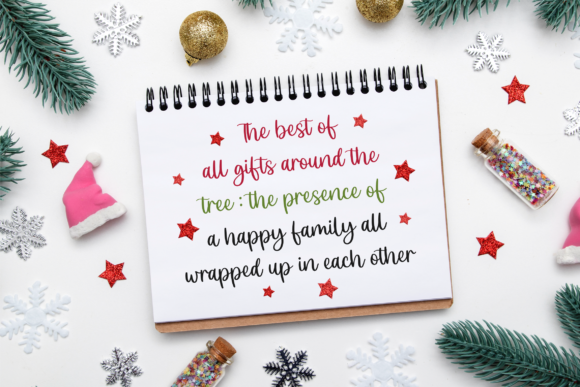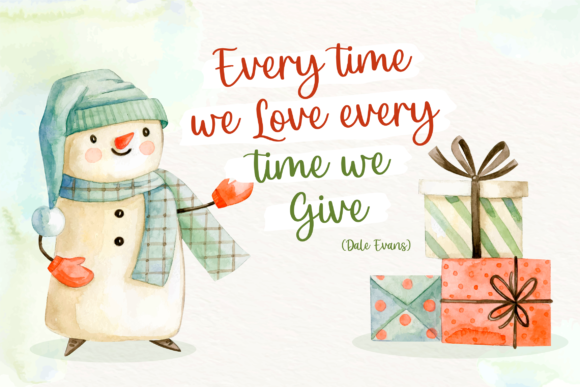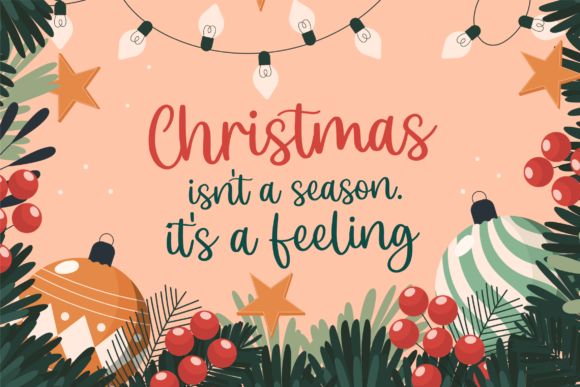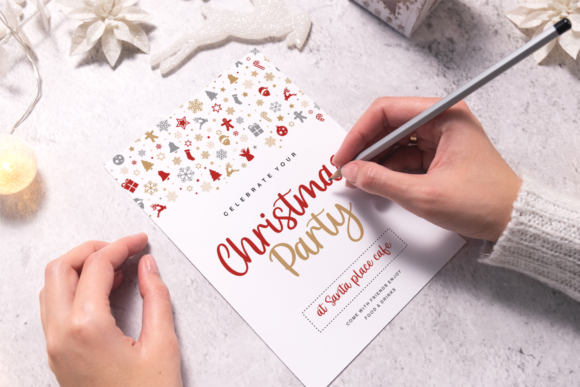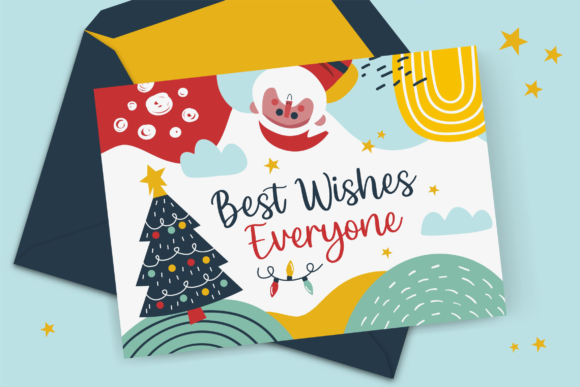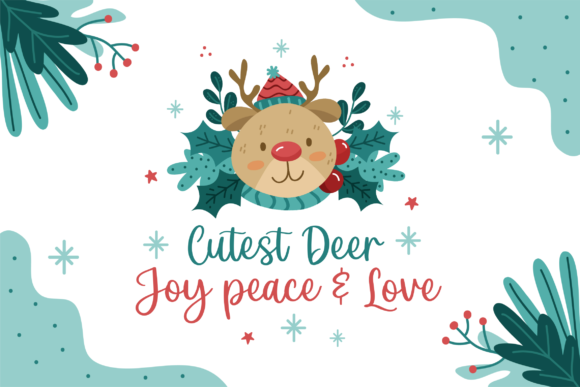
Introduction to Christmas Scriptty Font
It’s the most wonderful time of the year – and what better way to get into the holiday spirit than by unleashing your creativity? As designers, we’re always on the lookout for the perfect tools to bring our visions to life, and that’s exactly where the Christmas Scriptty Font comes in.
This dazzling script font is the perfect addition to any design project, adding a touch of luxury and sophistication that’s sure to impress. With its high-quality design and transparent background, it’s the ideal resource for any creative project that needs a little extra flair.
Whether you’re working on a festive holiday card or a commercial campaign, the Christmas Scriptty Font is a valuable asset to have in your design toolkit. And the best part? It’s available for a free download, making it accessible to designers of all levels and styles.
Key Features of Christmas Scriptty Font
- High-quality design: The Christmas Scriptty Font is a premium, high-quality design resource ideal for creative projects.
- Unique script style: The font features a unique script style with a festive touch, perfect for Christmas-themed designs.
- Large character set: The font includes a large character set, including uppercase and lowercase letters, numbers, and punctuation marks.
Honest Review: Christmas Scriptty Font
As a designer, I’m always on the lookout for unique and high-quality design resources to elevate my creative projects. The Christmas Scriptty Font is a great addition to any designer’s toolbox.
- ✨ The font is beautifully crafted, with a unique and festive feel that’s perfect for holiday-themed designs.
- ⚠️ The font only comes in a single style, which may limit its versatility for some designers.
Overall, I’m really impressed with the Christmas Scriptty Font. While it may have some limitations, its unique design and high quality make it a valuable resource for any designer working on a creative project.
Tips for Getting the Most Out of Christmas Scriptty Font
To get the most out of this font, use it on a transparent background to create a beautiful, high-quality design. You can also pair it with other design resources, such as graphics and illustrations, to create a cohesive look.
The Christmas Scriptty Font is perfect for holiday-themed designs, including invitations, cards, and decorations. It’s also great for creating social media graphics and promotional materials.